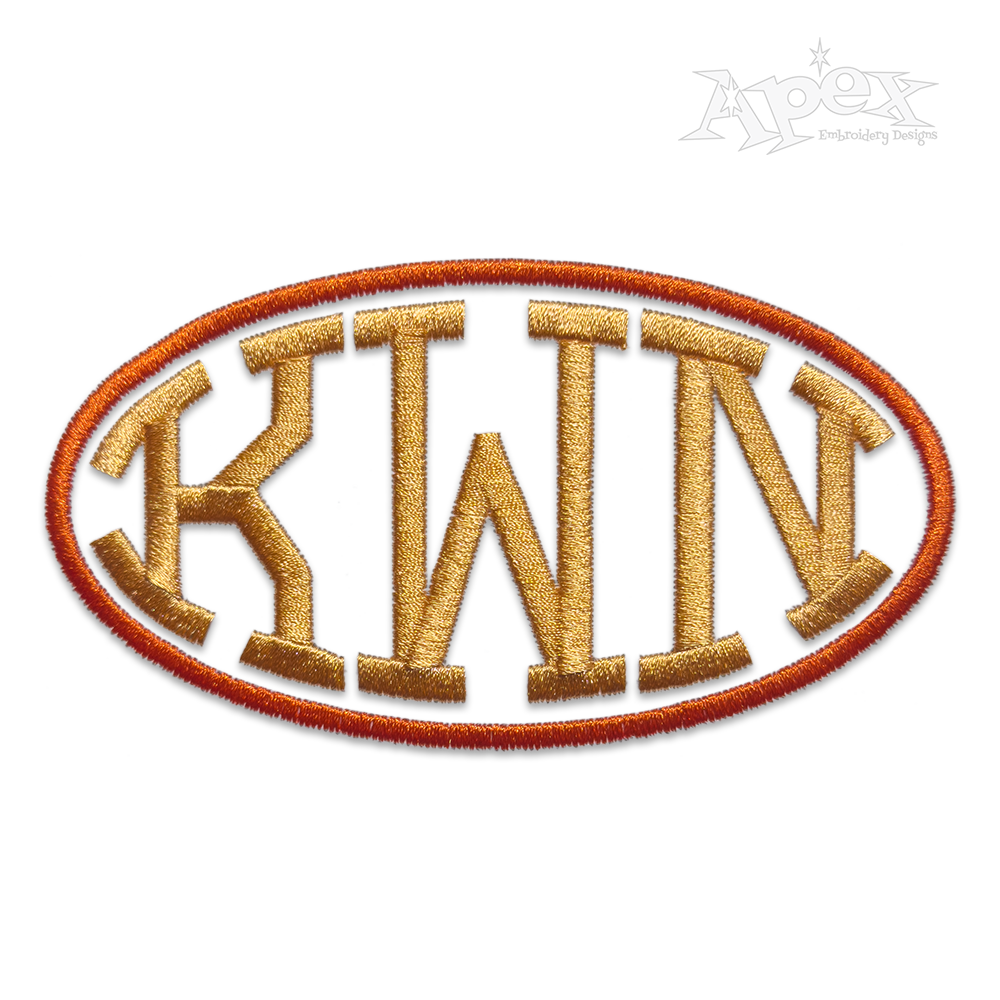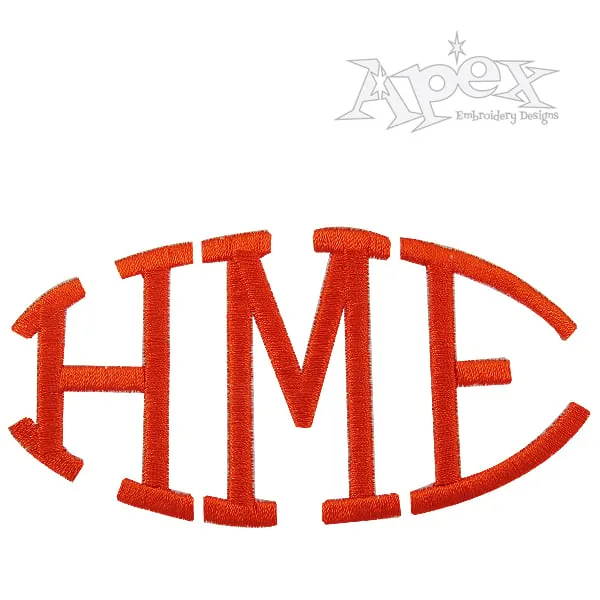
Oval Monogram Embroidery Font
There is an enduring majesty in the symmetry of a three-letter oval crest. In digitizing the Oval Monogram Embroidery Font, our goal was to capture the balanced grace of vintage signet seals and bespoke stationery, translating that iconic silhouette into pure threadcraft. Each letter—whether rounding the outer flank or commanding the center—is mathematically drafted to lock into harmonious alignment. When stitched, the lustrous satin threads create a tactile, raised profile that brings instant prestige and timeless elegance to bespoke gifts, tailored apparel, and fine home textiles.
Project Ideas for Oval Monogram Embroidery Font
The structured geometry of an oval crest naturally elevates everyday items into personalized keepsakes:
- Bespoke Table Linens: Stitch crisp monograms on hemstitched linen cocktail napkins, placemats, and formal dinner runners for bespoke entertaining.
- Heirloom Bedding: Center the 2-inch monogram on tailored pillowcases, duvet covers, or crisp percale sheets for an elevated boutique hotel aesthetic.
- Bridal & Trousseau Keepsakes: Add the newly shared monogram to silk robes, cosmetic pouches, and honeymoon canvas totes for thoughtful personalized gifting.
- Bespoke Resort Wear: Enhance terry pool towels, pique polo shirts, and linen button-downs with an understated crest.
The self-contained perimeter of an oval monogram lends itself to precise, structured placements:
- Table Linens: Position the crest 1.5 to 2 inches diagonally from the hemstitched corner of cocktail or dinner napkins for traditional Southern and European styling.
- Apparel & Loungewear: Center the monogram along the left chest, or angle it crisply across a cuff or pajama pocket.
- Pillow Shams & Towel Borders: Position dead center above decorative hem bands or centered directly on sham faces to allow the curved perimeter to anchor the visual field.
- Bags & Travel Accessories: Center between tote handles or across cosmetic pouches where the symmetrical oval provides a clean focal point.
Oval Monogram Embroidery Font Craft & Letterform Details
Digitizing a three-part oval monogram requires an intimate understanding of curve curvature and satin thread dynamics. The flank letters—Left and Right—feature sweeping outer contours that gently taper and round, forming the curved silhouette of the oval, while maintaining perfectly vertical interior margins to frame the dominant center initial.
Every column is digitized with carefully calibrated stitch angles that follow the organic flow of the letterforms, catching ambient light to create a rich, dimensional sheen. Underneath the surface, structured underlay ensures stable loft without pushing the edges out of true oval alignment. The result is a crisp, smooth border and clean interior counters that stitch effortlessly, even on textured linens and soft woven cottons.